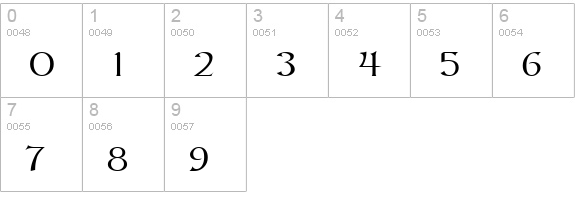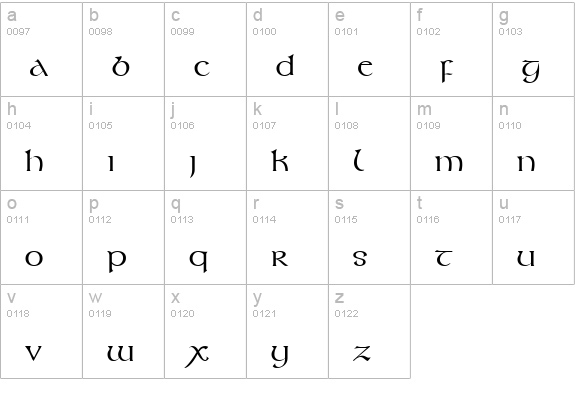
Kelt Wide Normal is the standard, neutral, extended-width variant in the Kelt typeface family \xE2\x80\x94 well suited to general body text, paragraphs, and standard typographic work.
Kelt Wide Normal font is a versatile typeface that effortlessly combines elegance and legibility. With its clean lines and well-balanced letterforms, this font is perfect for a wide range of creative projects, whether it be designing logos, crafting beautiful headlines, or creating visually captivating posters. The Kelt Wide Normal font is designed with meticulous attention to detail, ensuring that each letter is harmoniously proportioned. Its wide stance and open letter-spacing make it highly readable, even at smaller sizes. The font's well-defined strokes and subtle curves add a touch of sophistication to any design, making it suitable for both professional and personal projects. One of the best features of the Kelt Wide Normal font is that it is available for free download at FontsMarket.com. This means that you can easily access this remarkable typeface without breaking the bank. Whether you are a student, a freelance designer, or a small business owner, this font provides a valuable resource that can elevate your design projects to new heights. So, if you are looking for a font that combines style, versatility, and affordability, look no further than Kelt Wide Normal. With its free availability at FontsMarket.com, you can effortlessly enhance your designs with this remarkable typeface.